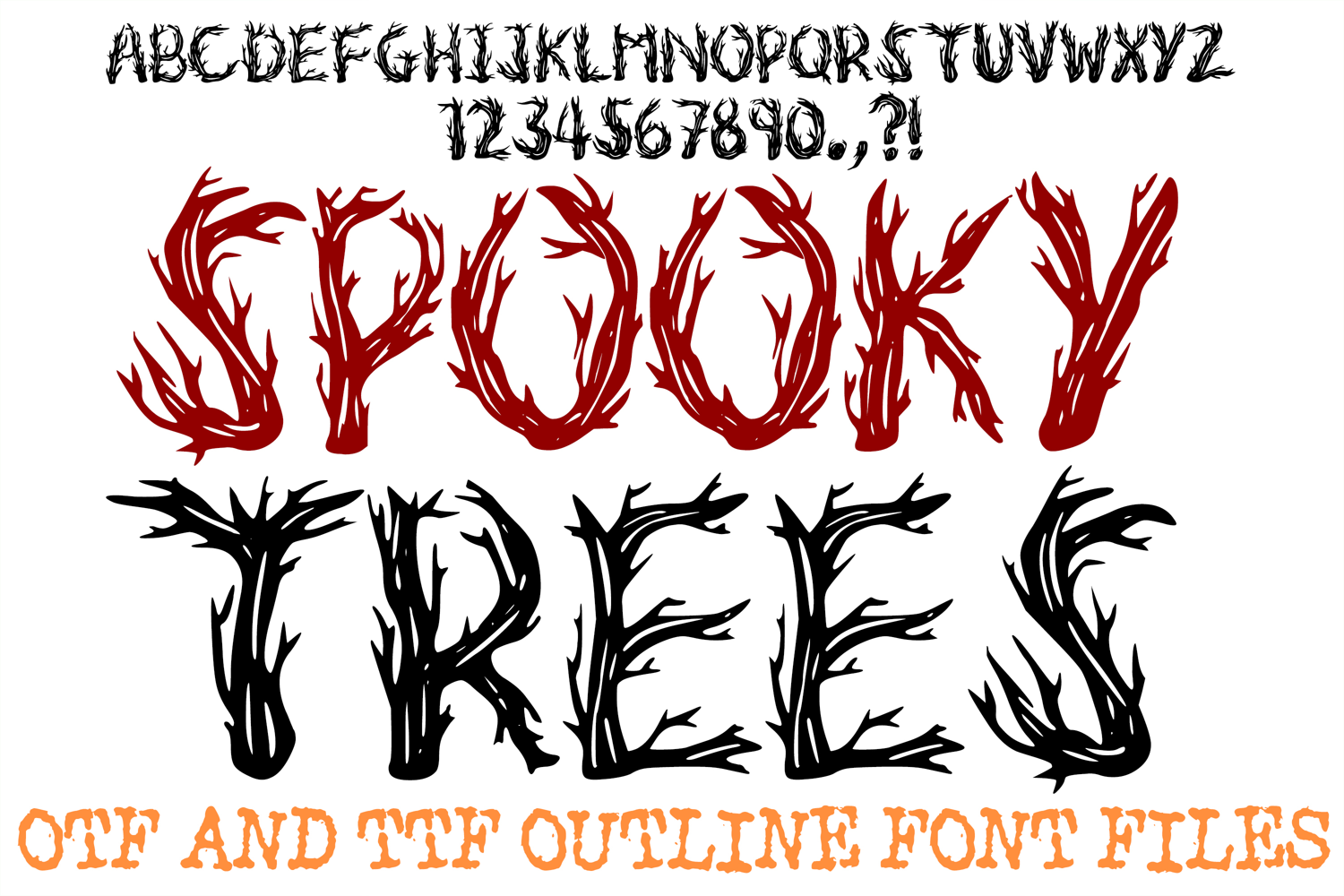
Spooky Trees ABC Font Typeface Woodland Forest Alphabet OTF
Set a haunting, mysterious atmosphere with Spooky Trees, an installable display font crafted from twisted, bare tree branches and sharp twig silhouettes. Featuring eerie wood-grain textures and dramatic, sweeping offshoots, this typeface brings an authentic gothic forest aesthetic to your designs.
Ideal For:
Halloween & Seasonal Crafts: Haunted house signs, party invitations, trick-or-treat bags, and spooky party banners.
Apparel & Merch: Horror t-shirts, gothic hoodies, tote bags, and seasonal accessories.
Gothic & Dark Fantasy Design: Book covers, podcast logos, poster headers, and eerie graphics.
Vinyl & Cutting Projects: Craft machine creations, custom decals, laser-cut wooden signs, and stencil projects.